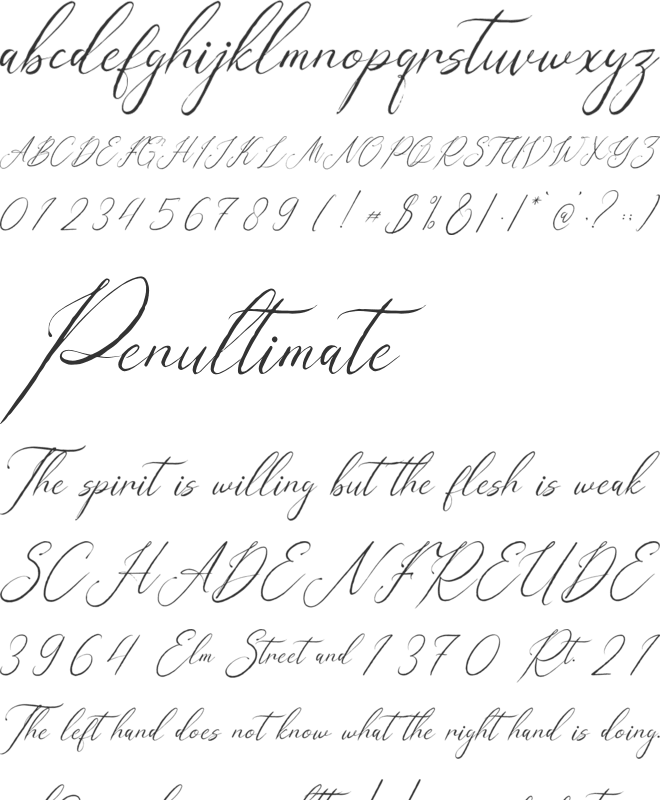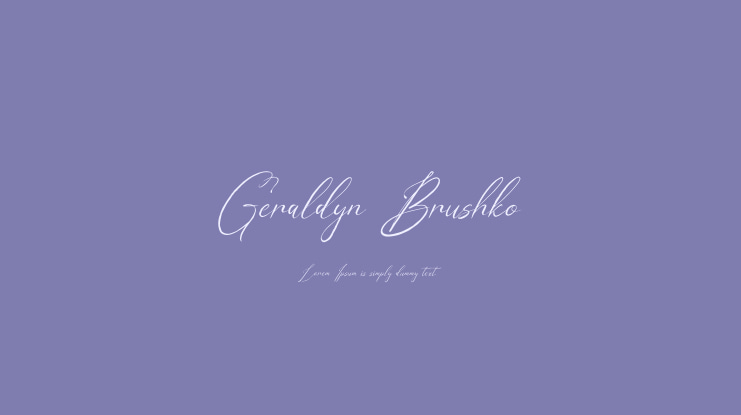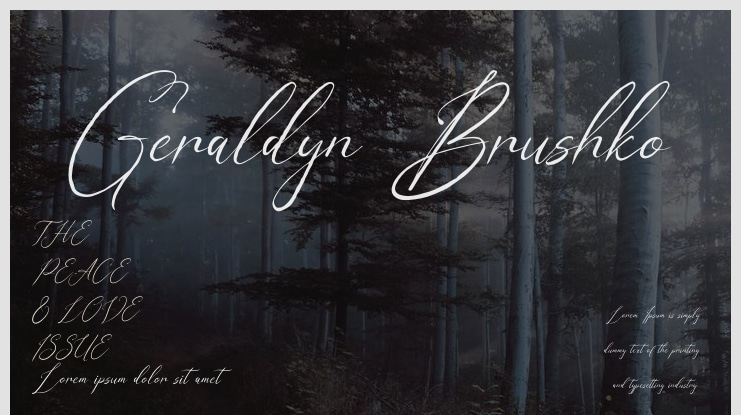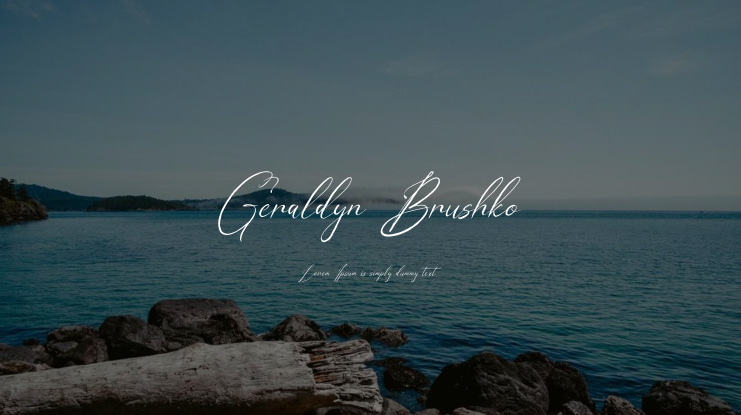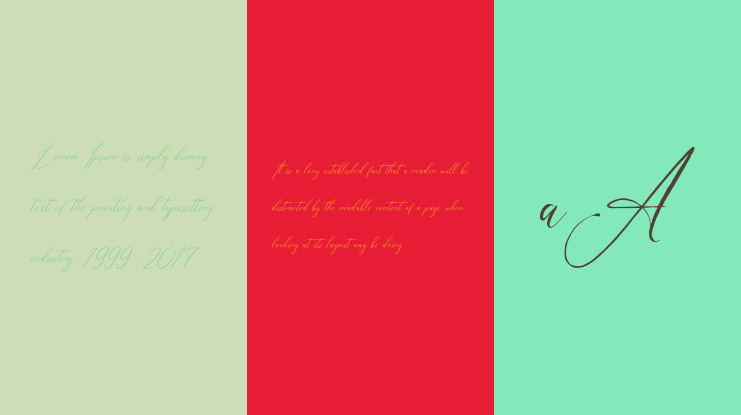
Dede Nugraha
Geraldyn Brushko | Modern Calligraphy is a versatile font suitable for a wide range of projects including logos, branding, homeware designs, product packaging, mugs, quotes, posters, shopping bags, t-shirts, book covers, name cards, invitation cards, greeting cards, labels, photography, watermarks, special events, and more projects that require an elegant script style.